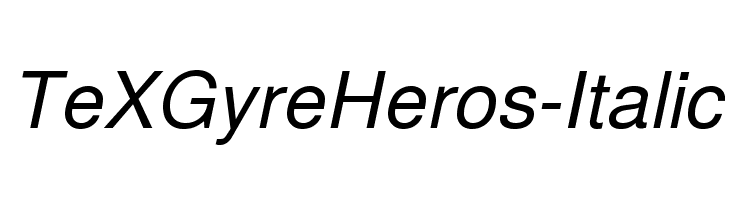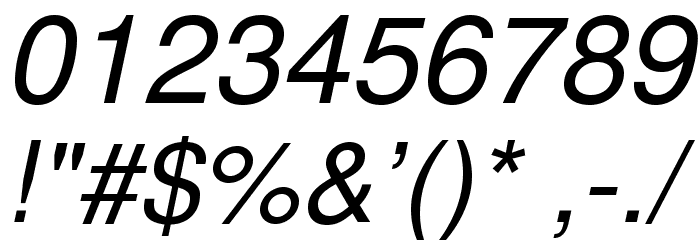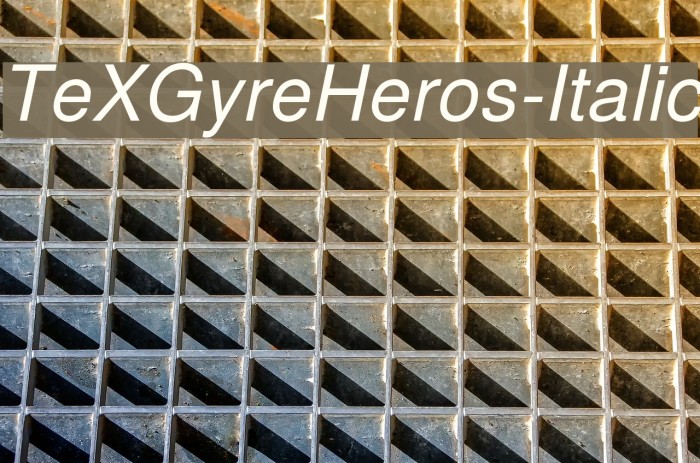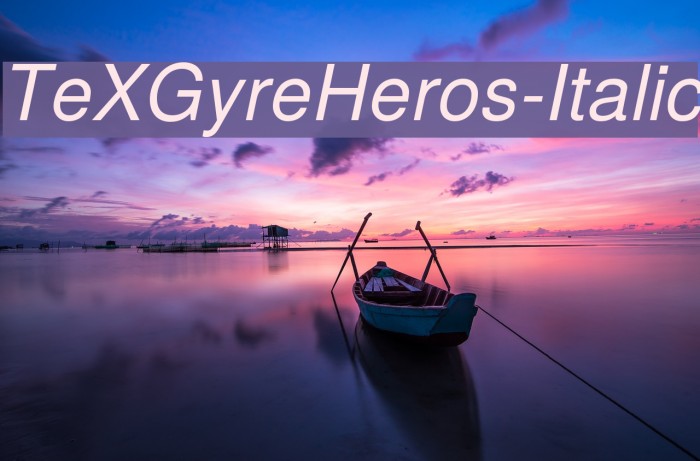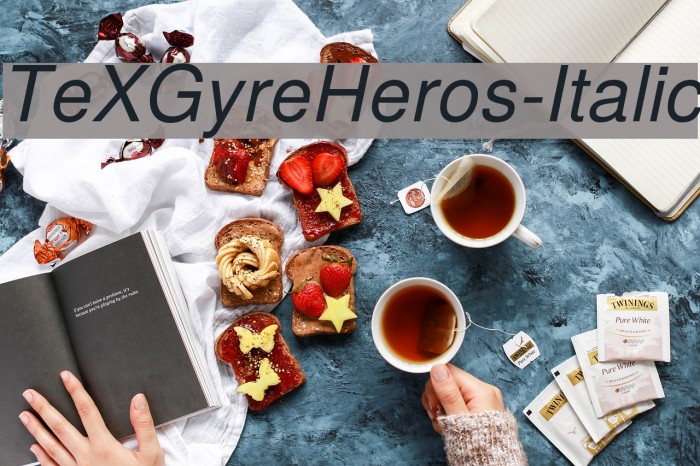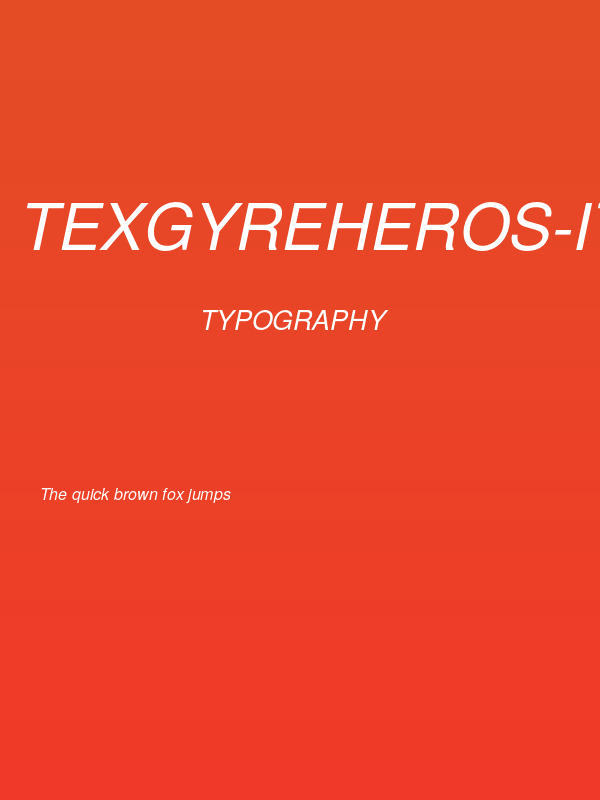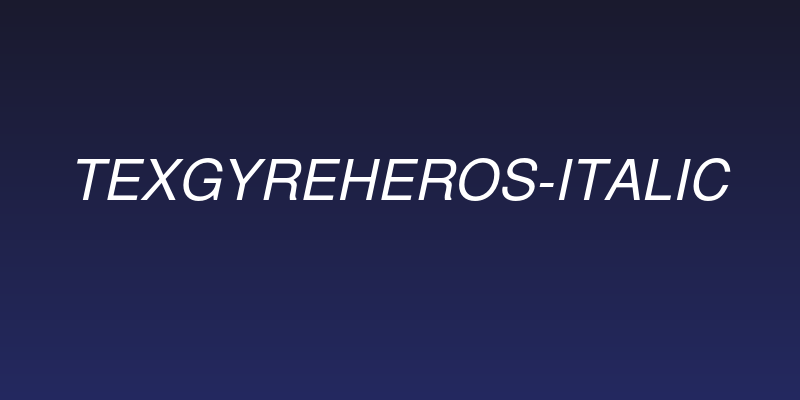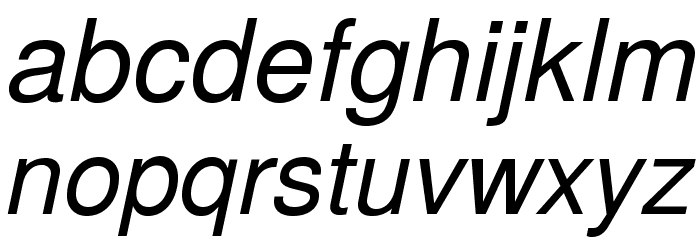
TeXGyreHeros-Italic Font
TeXGyreHeros-Italic Description
This font exhibits a clean and modern sans-serif style with a slight italic slant, giving it a dynamic and forward-moving appearance. The characters are well-proportioned with consistent stroke widths, contributing to its readability and versatility. The uppercase letters are bold and assertive, while the lowercase letters maintain a smooth and approachable look. The numerals are clear and distinct, making them suitable for both text and numerical data. The special characters are designed to complement the overall style, ensuring a cohesive look across different types of content.
| Proposed Projects | Ideal for branding, advertising, and digital content where a modern and professional look is desired. |